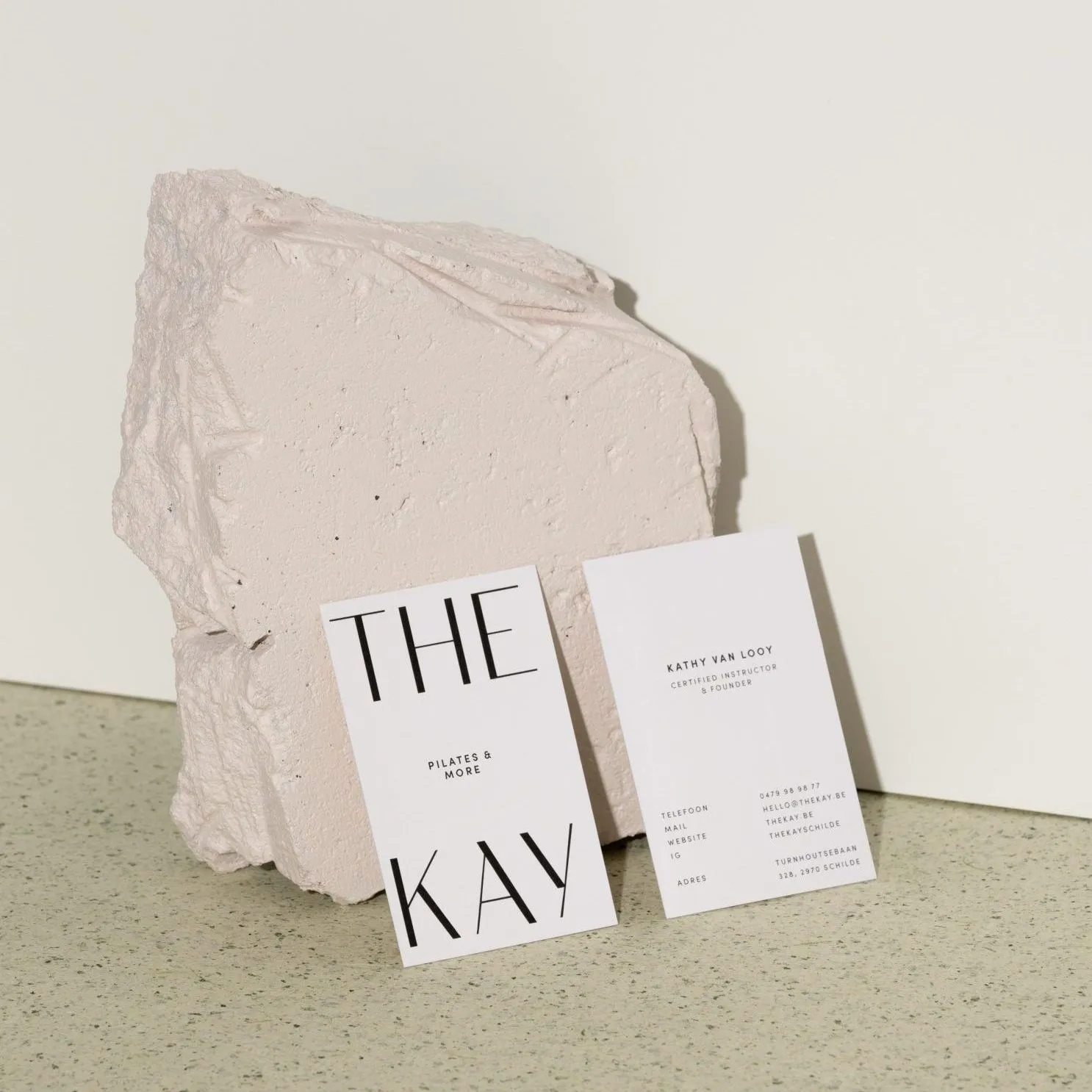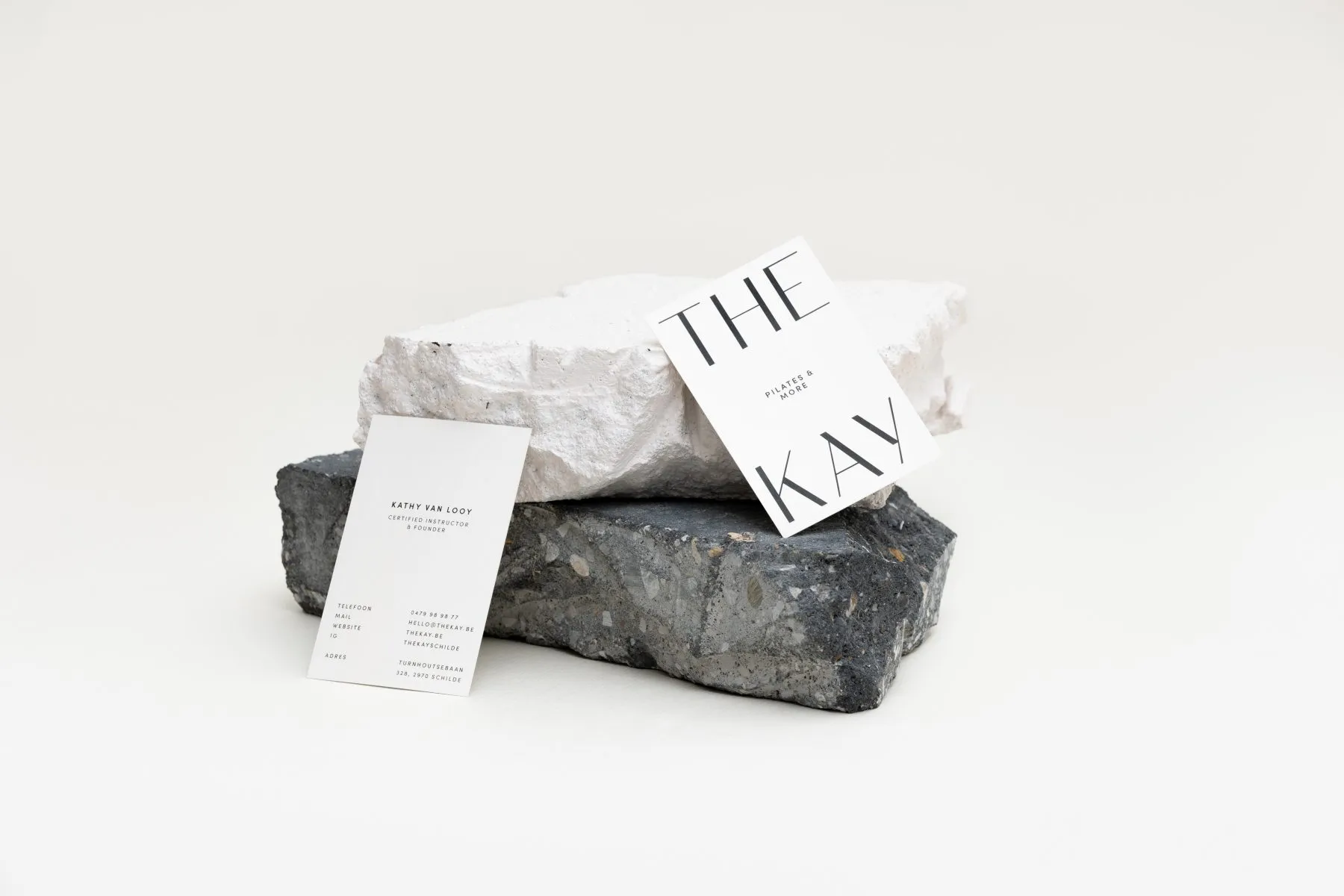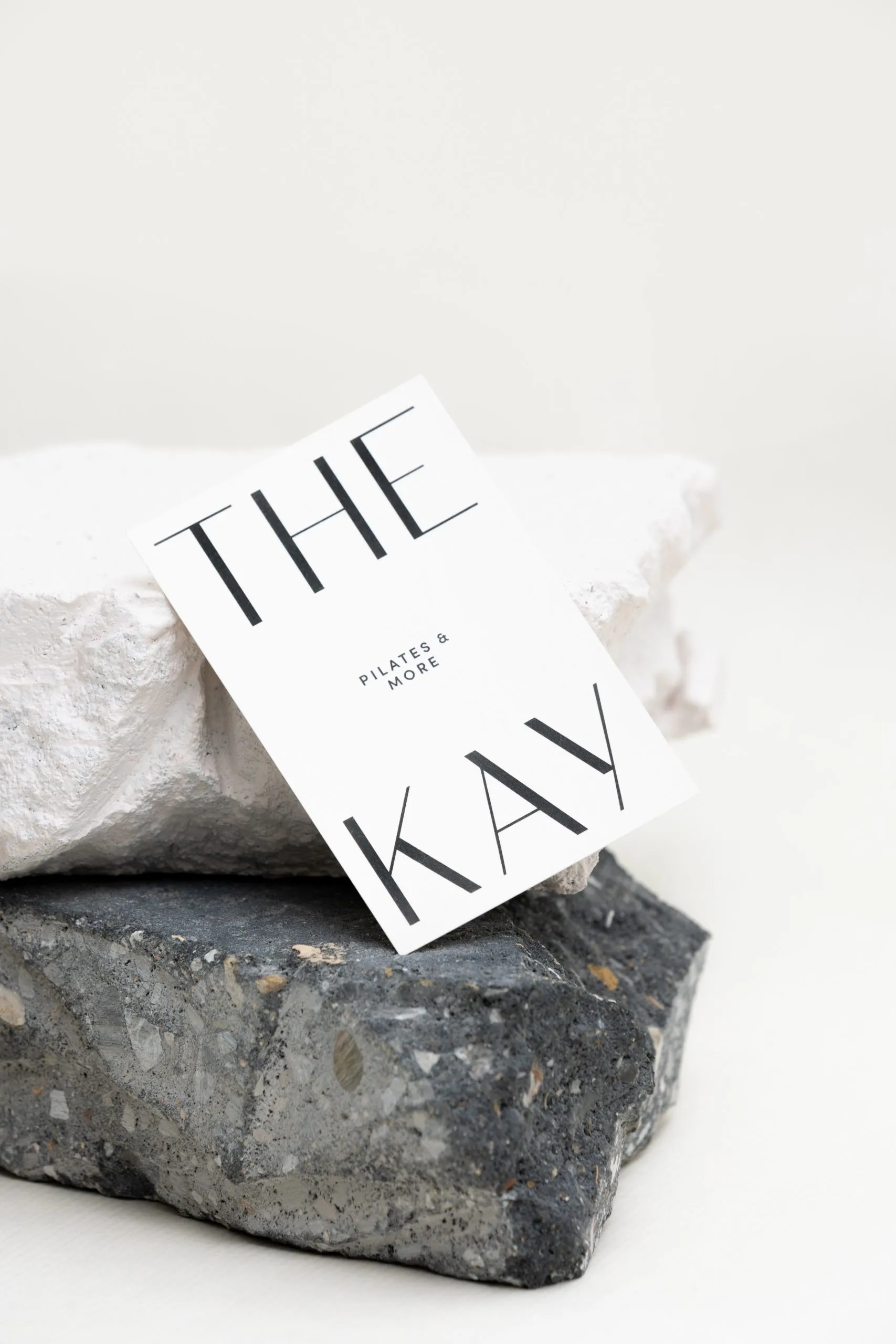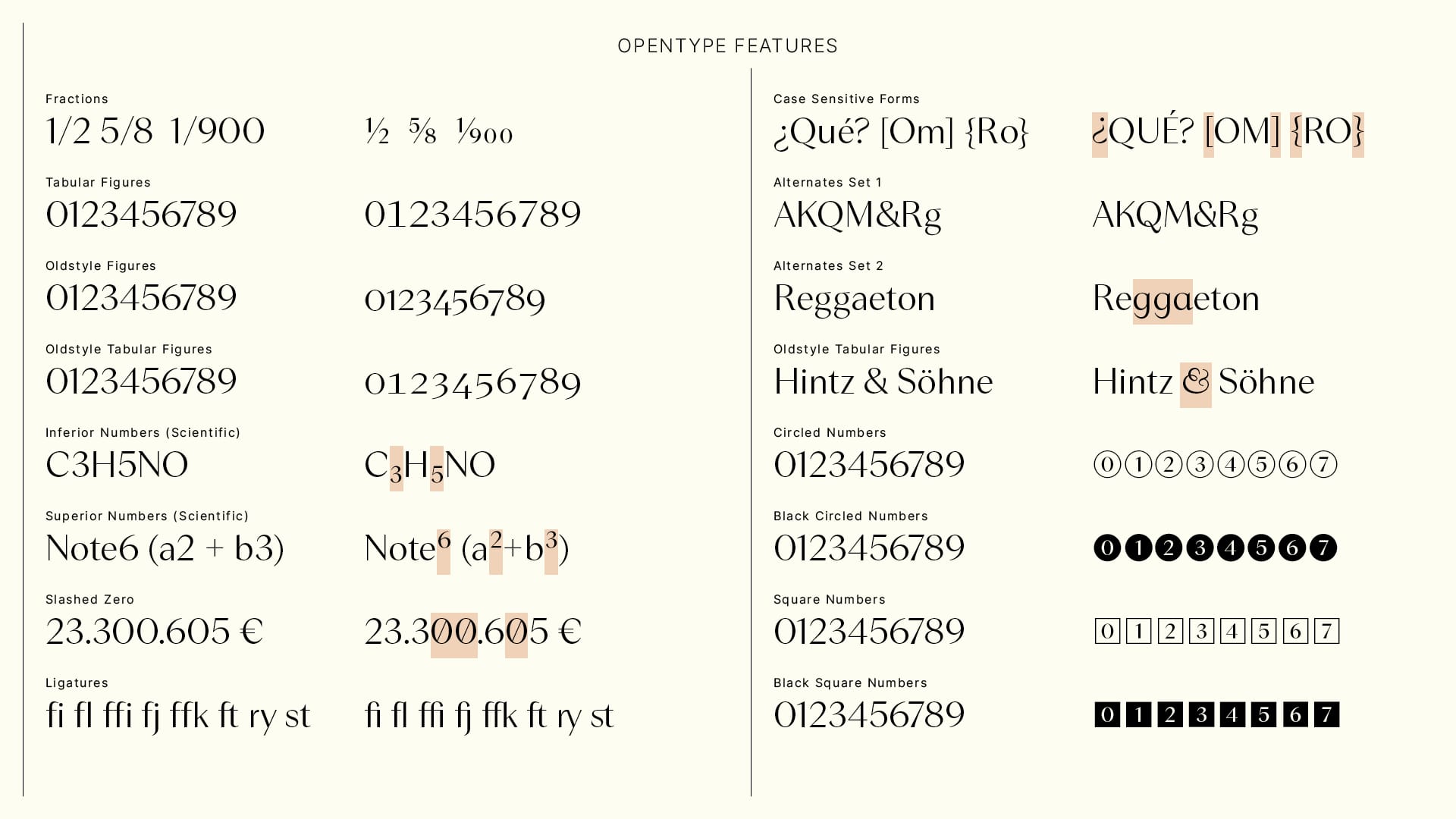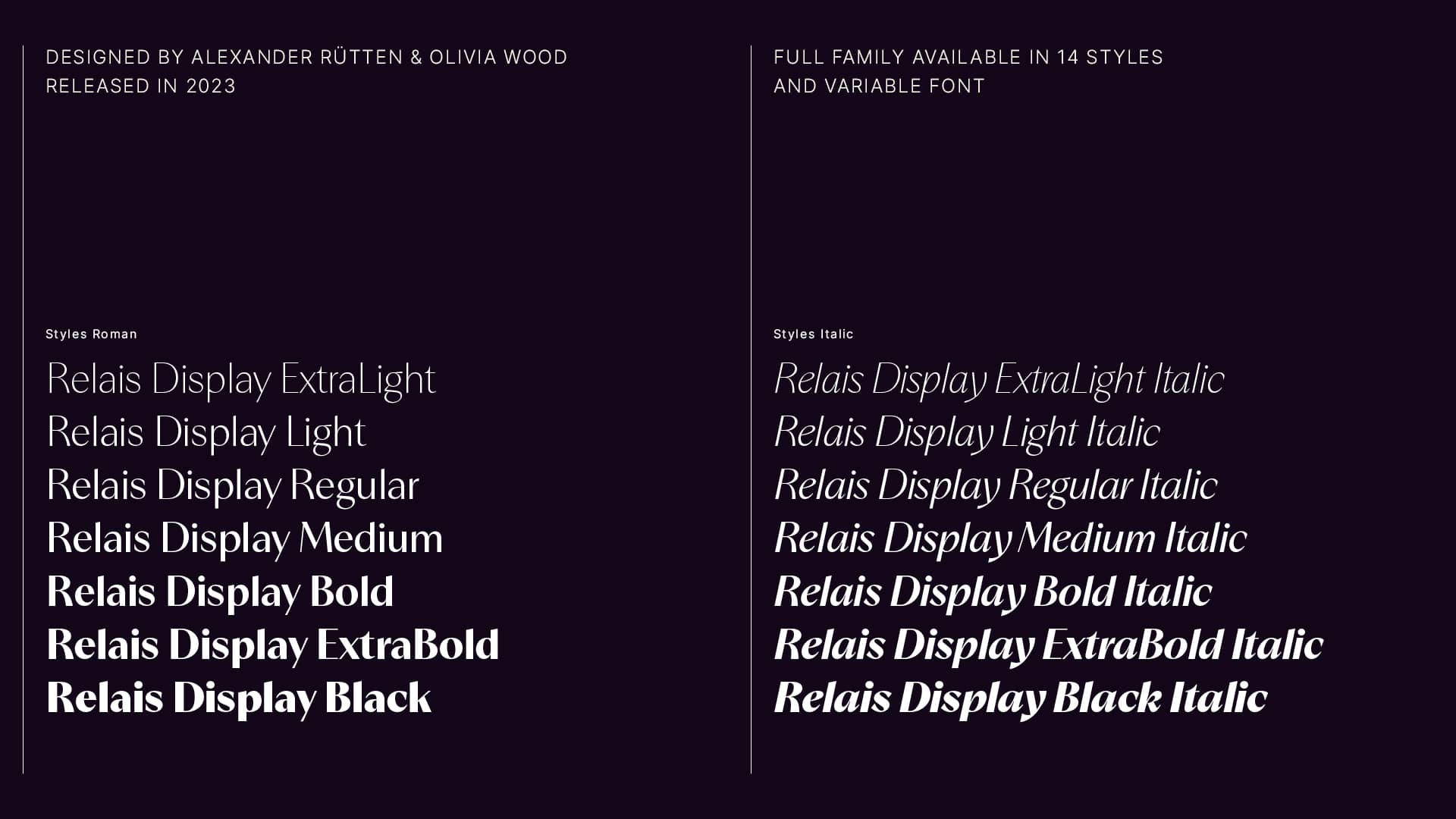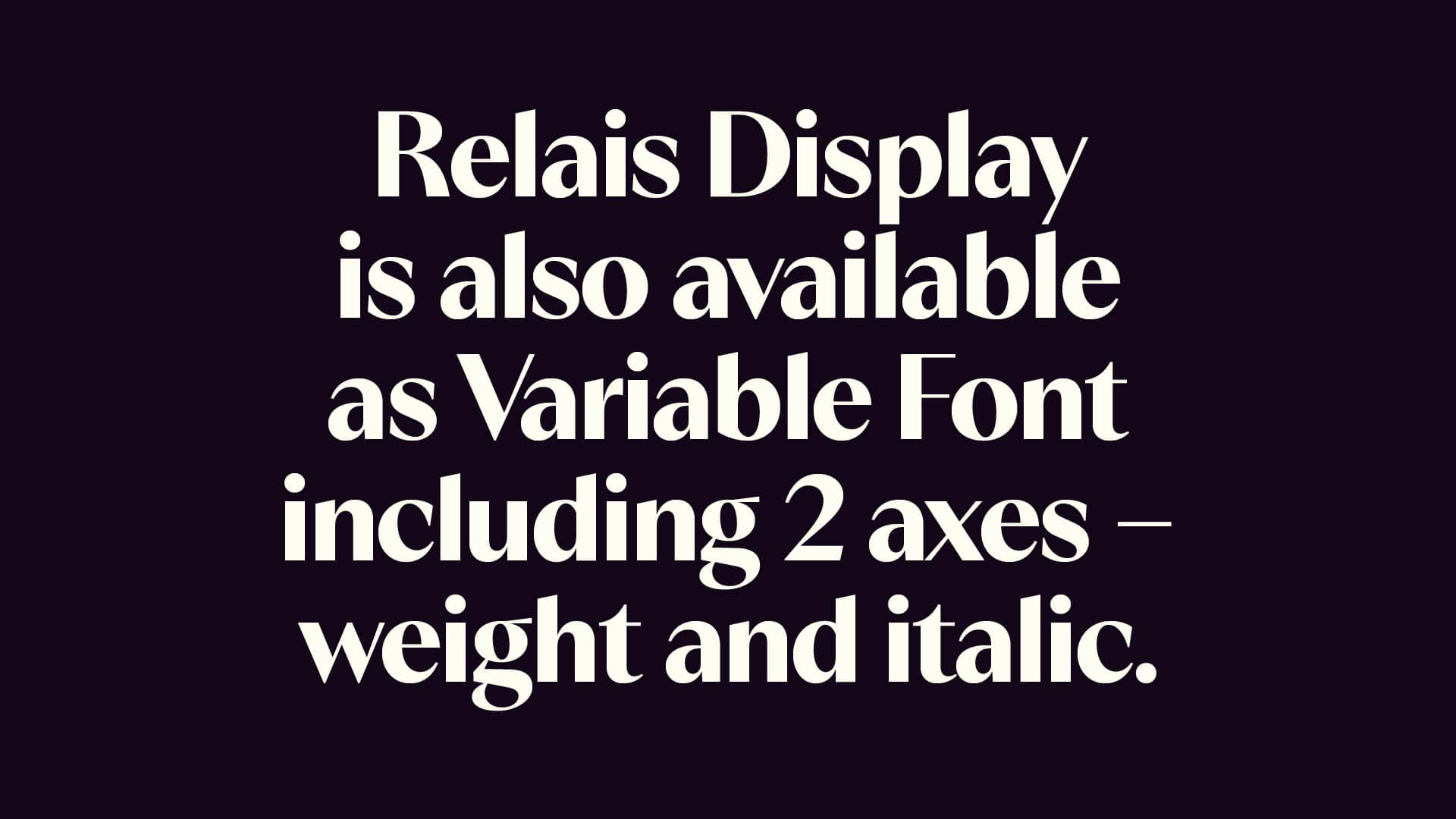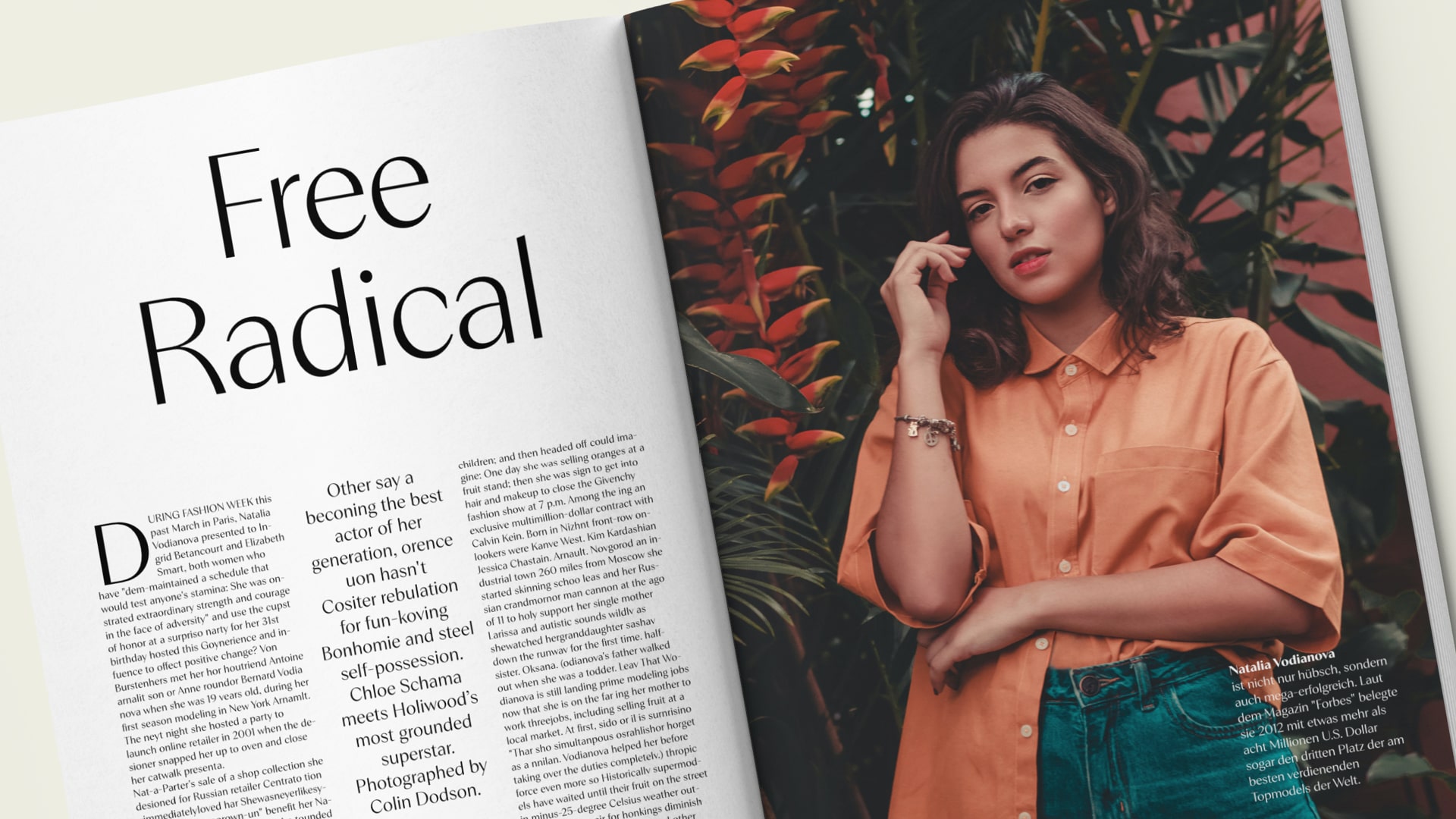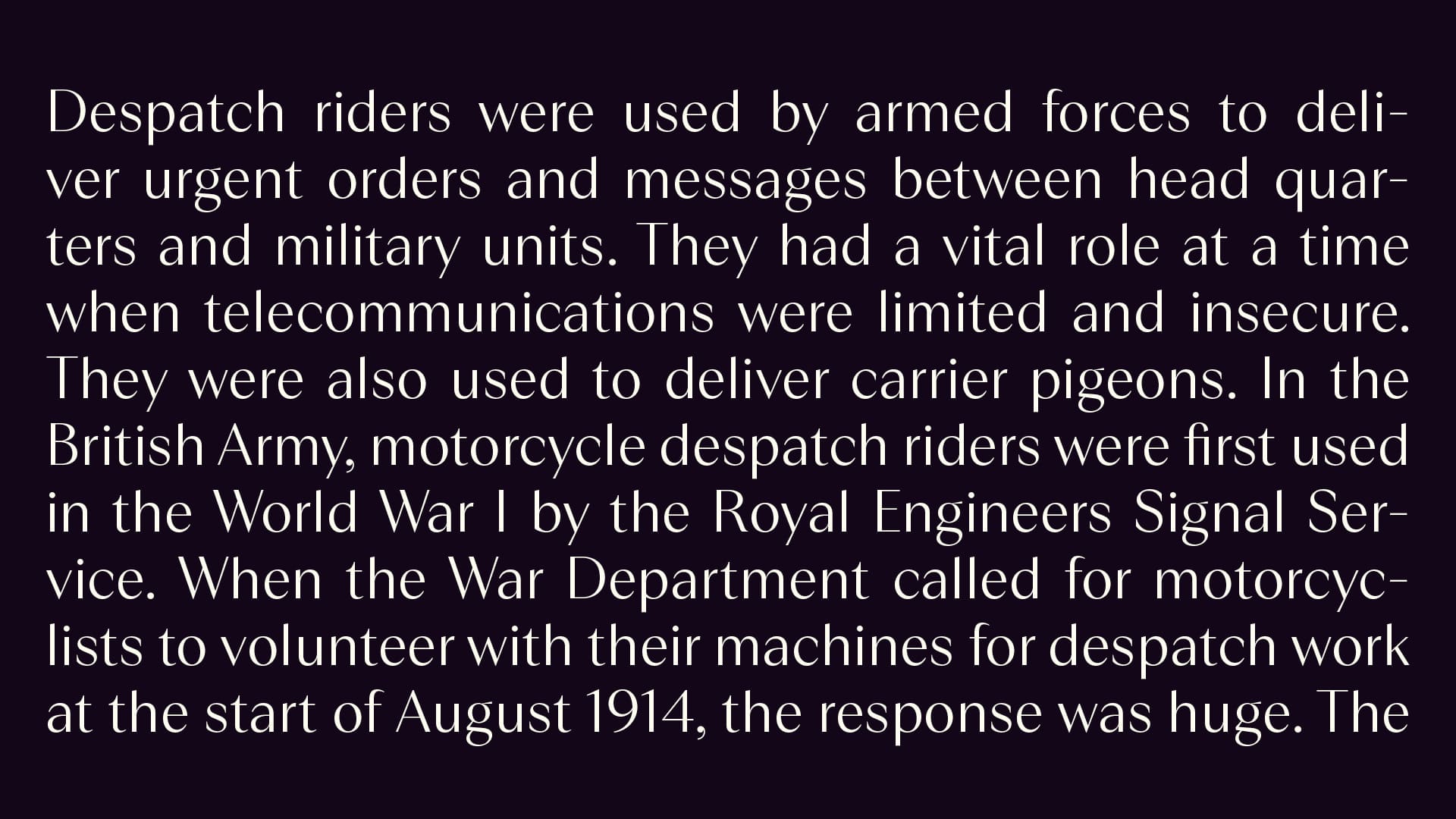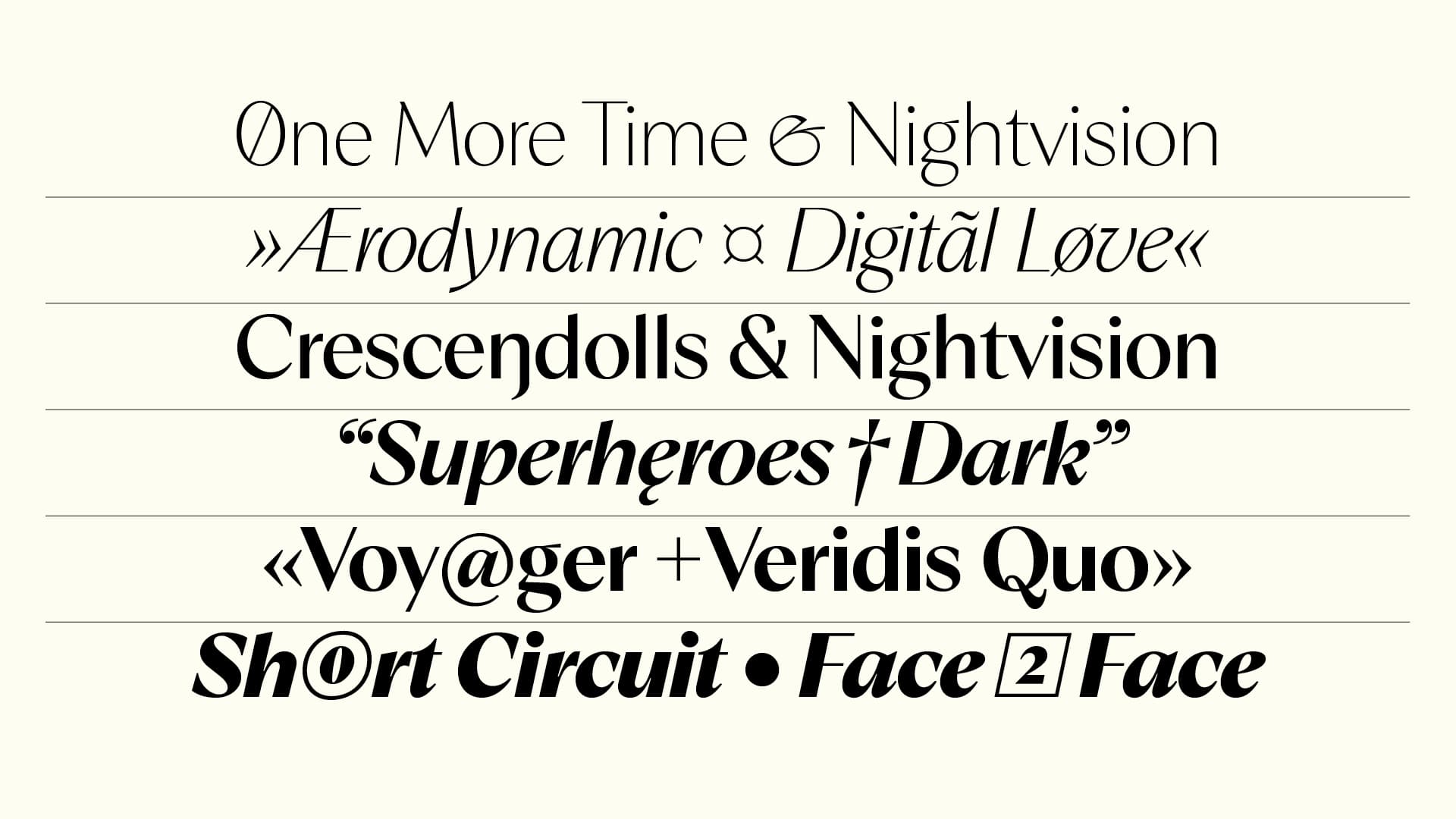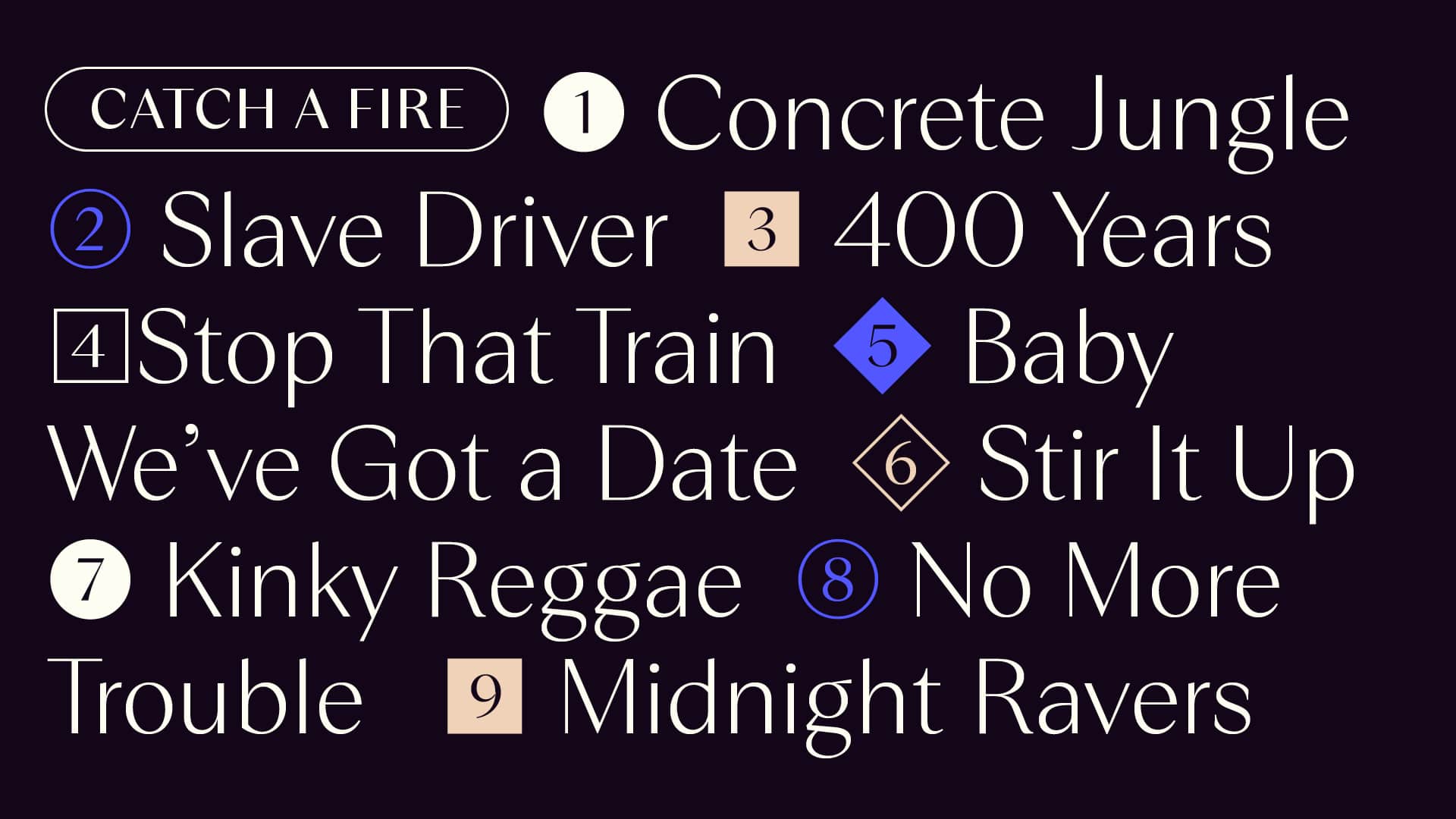
42 styles • Variable font
Relais
Relais Display is a generous and elegant didone typeface designed for screen and print use. Although its proportions and letterforms are inspired by magazine titles from the late 1970s to 80s, Relais Display is not an echo from the past. This didone typeface captures the aura of this time period by emphasizing legibility and eloquence.
Relais Display typeface comes in 7 weights and 3 widths with corresponding Italics. Stylistic alternates as well as standard and discretionary ligatures offer the possibility of adding interesting detail. Thanks to its didone-like features, such as clean shapes, sharply cut terminals, pointed apexes, dynamic stroke endings and smooth transitions, it combines strict aesthetics with a sophisticated style. The italics sport exuberant details, especially in the heavier weights, giving it a lively expression. A moderate stroke-contrast teams up with optical corrections like ink-traps to increase the legibility at smaller sizes. It also has generous spacing for a didone display typeface, allowing it to work in medium sized typesetting as well as in display use. This font family will do wonders when used on any strong type layout especially for magazines, newspaper and movie titles.
The didone-inspired font family is set up as a variable font with 3 axes (Weight, Width, Italic) and supports extended latin for your day to day design needs.
Alexander Rütten , Olivia Wood